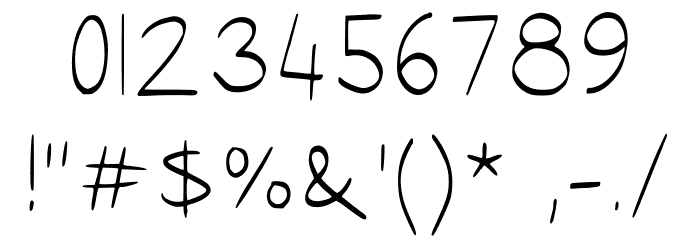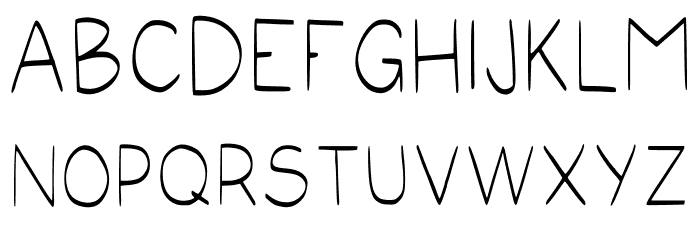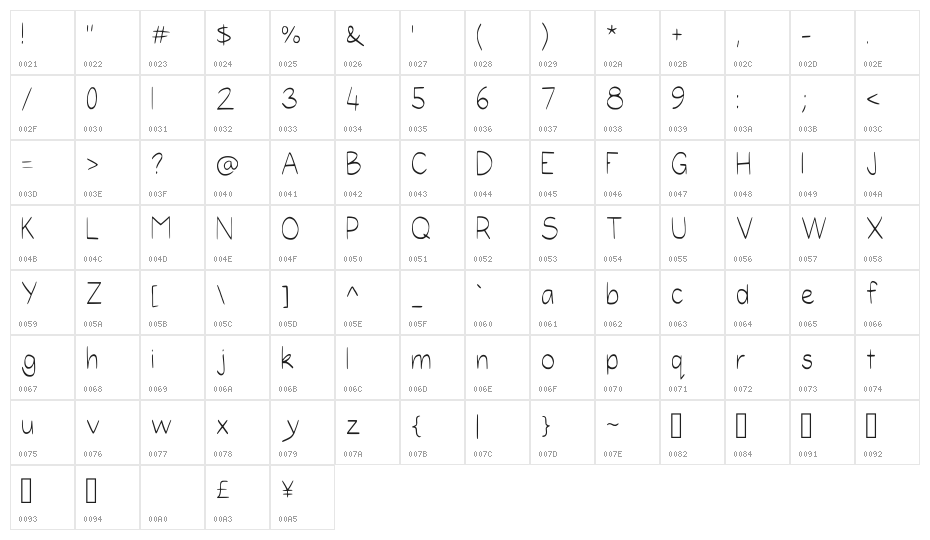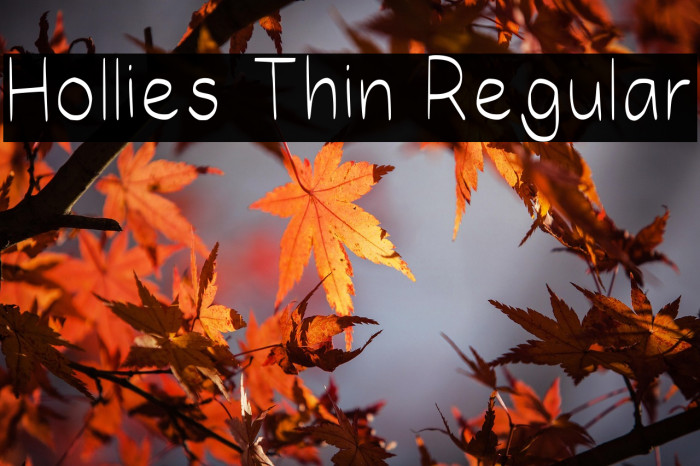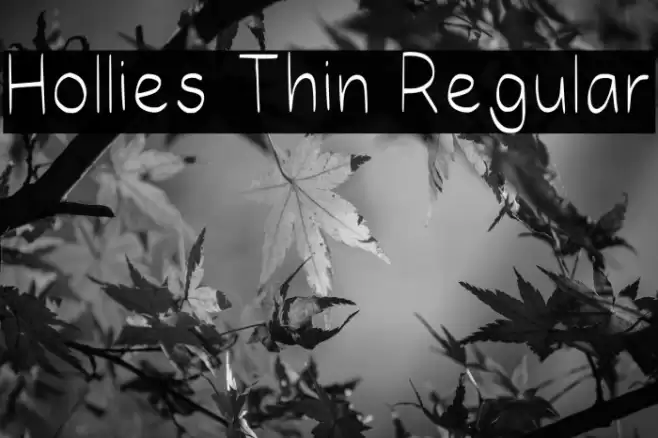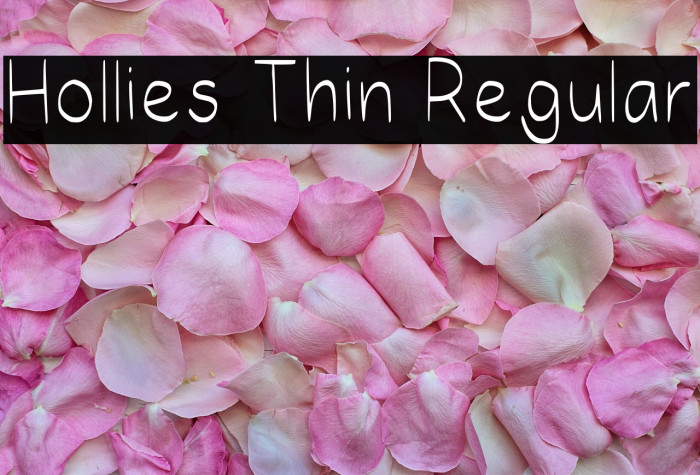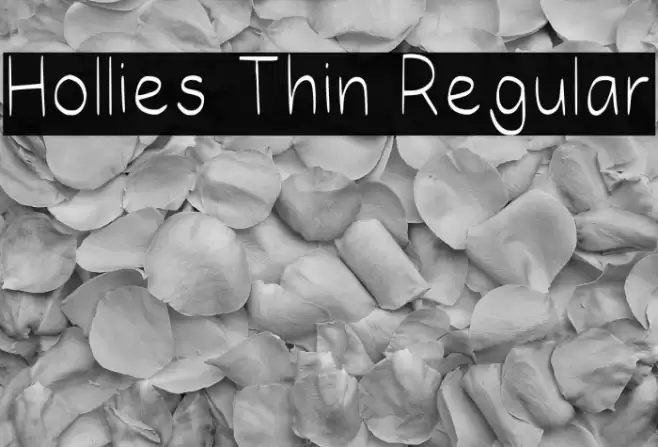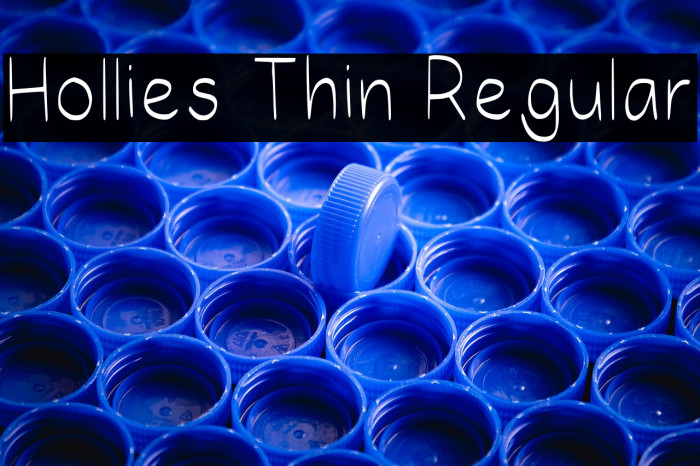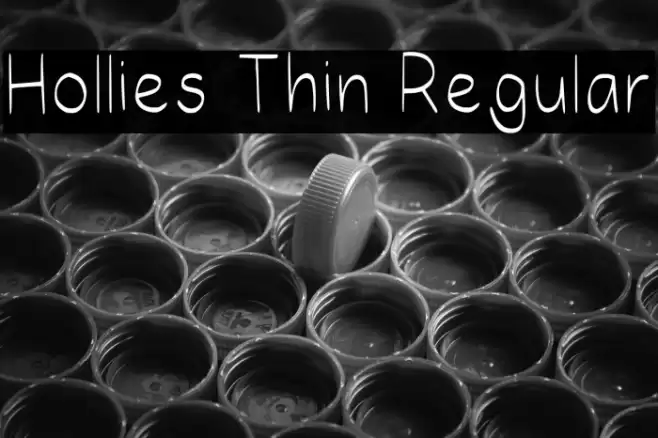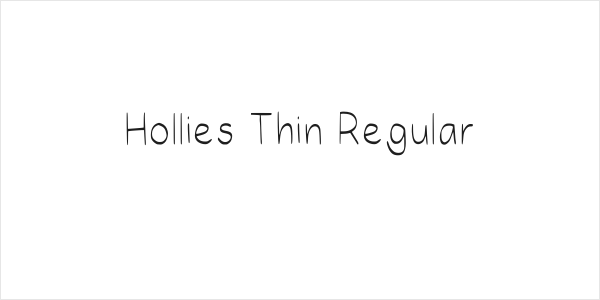
Hollies Thin Regular Font
Hollies Thin Regular Description
This font features a playful and informal style with thin, slightly irregular strokes that give it a hand-drawn appearance. The characters are tall and narrow, with a consistent line weight that adds to its casual charm. The uppercase letters are slightly taller than the lowercase, maintaining a uniform height across the board. The numerals and special characters follow the same design principles, ensuring a cohesive look. This font's simplicity and readability make it versatile for various design applications.
| Width | Condensed |
| Overall Style | Casual |
| Use Case | Headlines, Informal text, Branding |
| Proposed Projects | Ideal for children's books, casual invitations, greeting cards, and playful branding projects. |